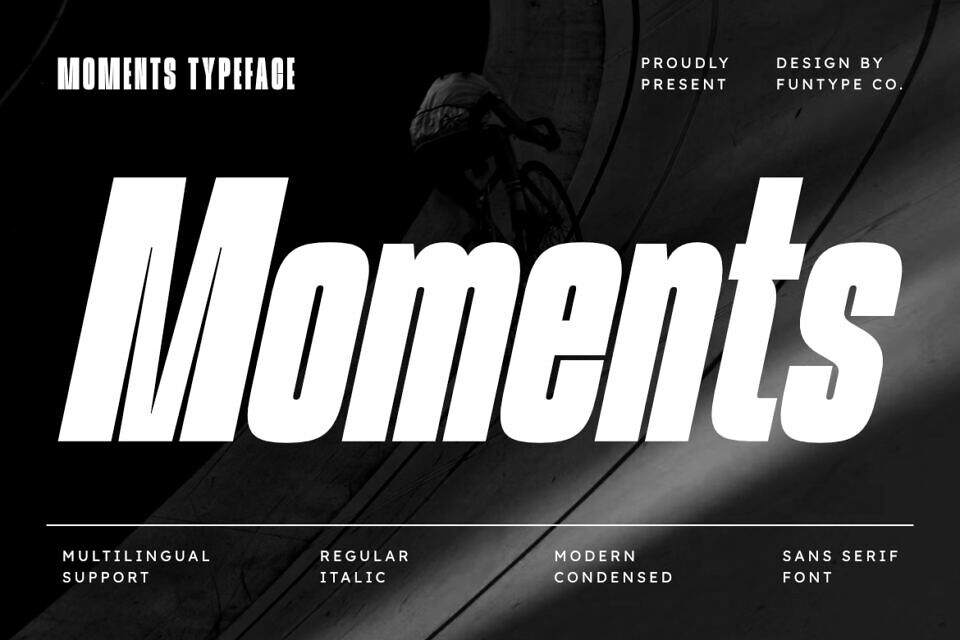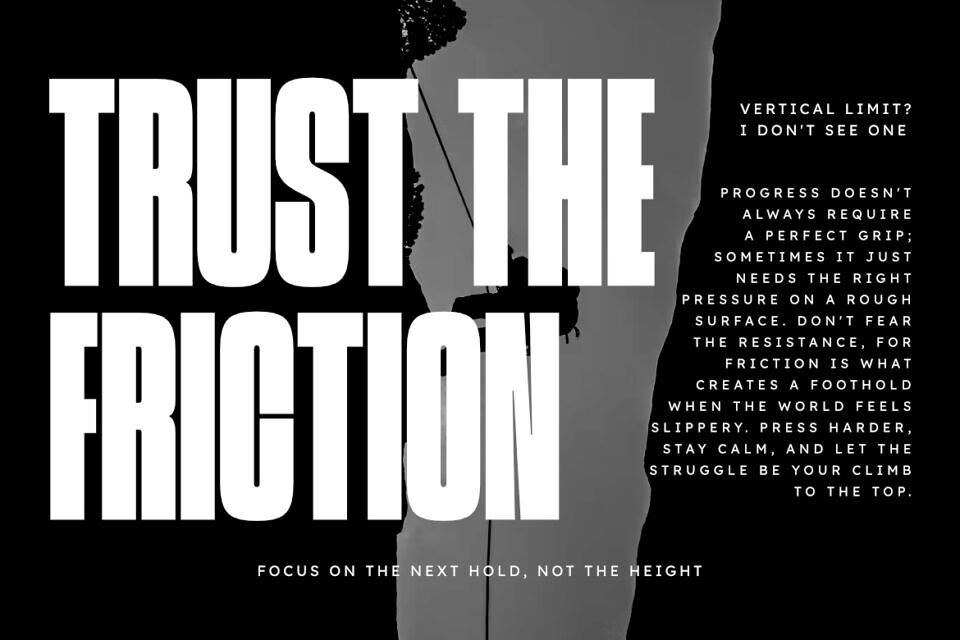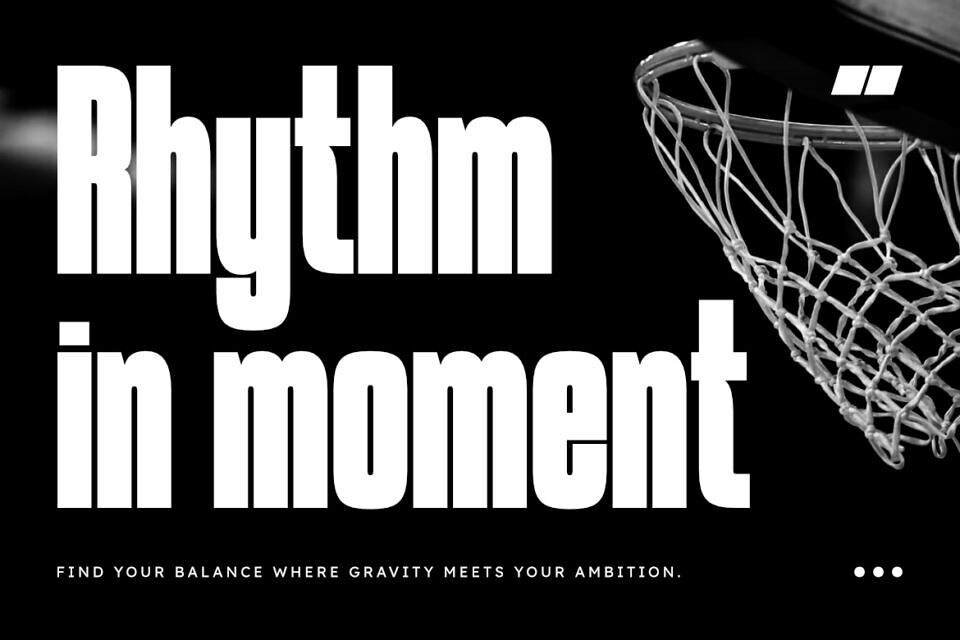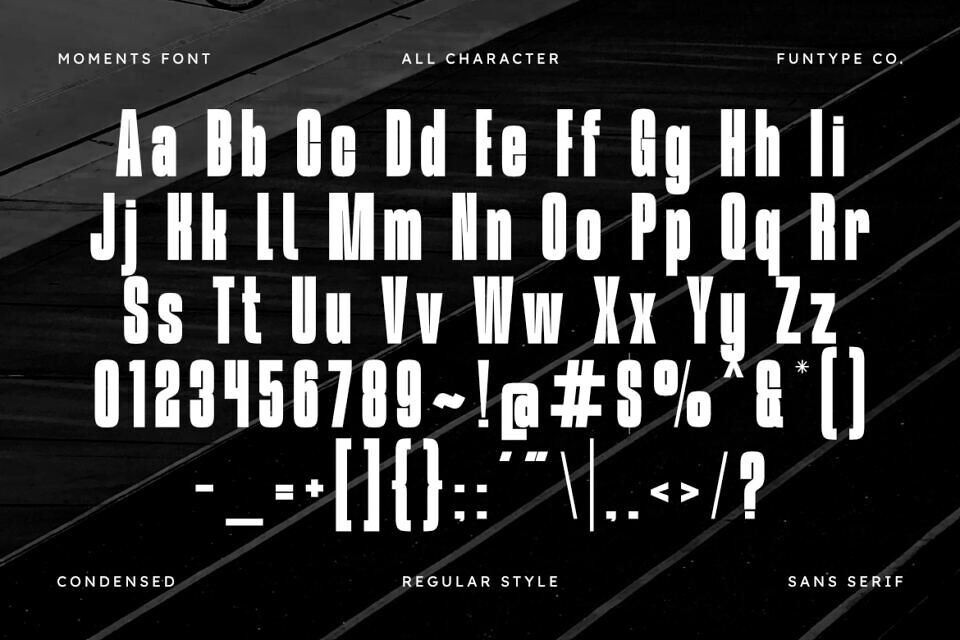
Moments is a high-impact, condensed sans serif typeface designed to capture the essence of speed, strength, and modern professionalism. Built with a tall structure and clean geometric lines, Moments is engineered for designers who need to command attention in compact spaces without losing clarity.
The family includes both Regular and Italic versions, providing the flexibility to inject a sense of motion and urgency into your designs. With its solid presence and multilingual support, Moments is the ultimate tool for creating dominant headlines, aggressive branding, and high-visibility editorial layouts.